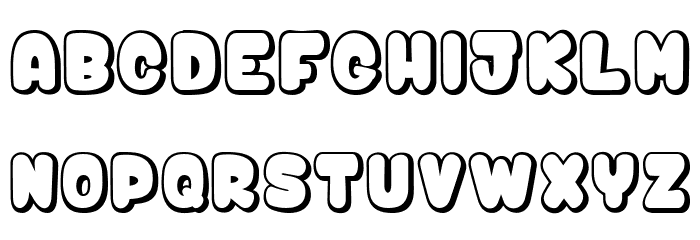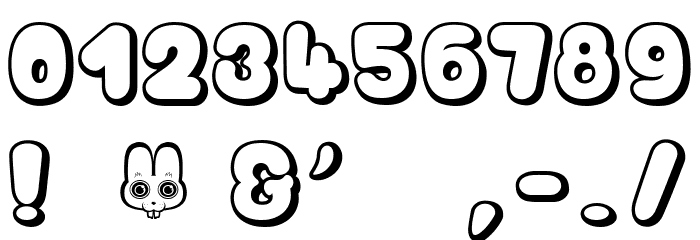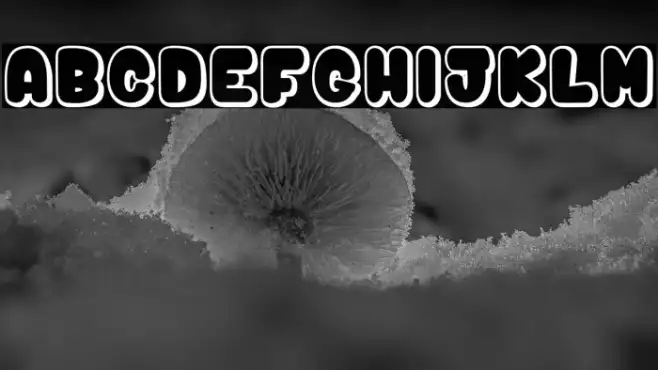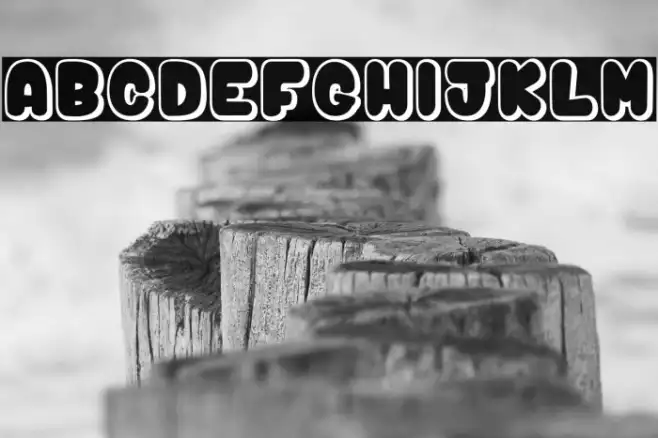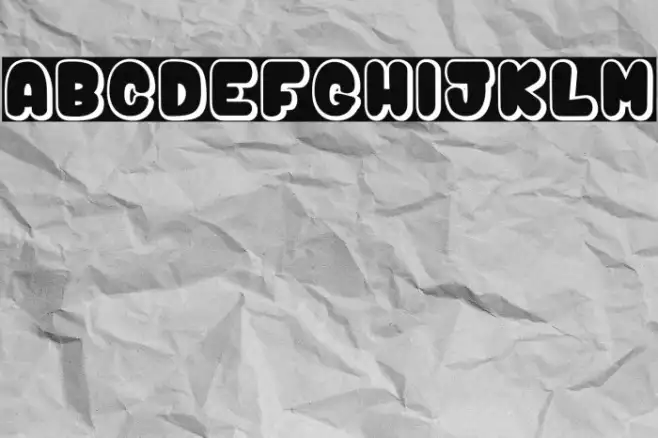
bunny$mambo Font
This playful and bold font features rounded, bubble-like characters that exude a sense of fun and whimsy. The letters are thick and have a cartoonish quality, making them ideal for designs that aim to capture attention with a lighthearted and cheerful vibe. The font includes both uppercase and lowercase letters, numerals, and a selection of special characters, all maintaining a consistent style. The characters are outlined, adding an extra layer of depth and making them stand out even more. This font is perfect for projects that require a touch of humor and creativity.
A playful, bold font with rounded, bubble-like characters and a cartoonish style.
- Font: bunny$mambo
- Proposed Projects: Ideal for children's books, playful branding, party invitations, and comic-style graphics.
- Overall Style: Playful, Cartoonish